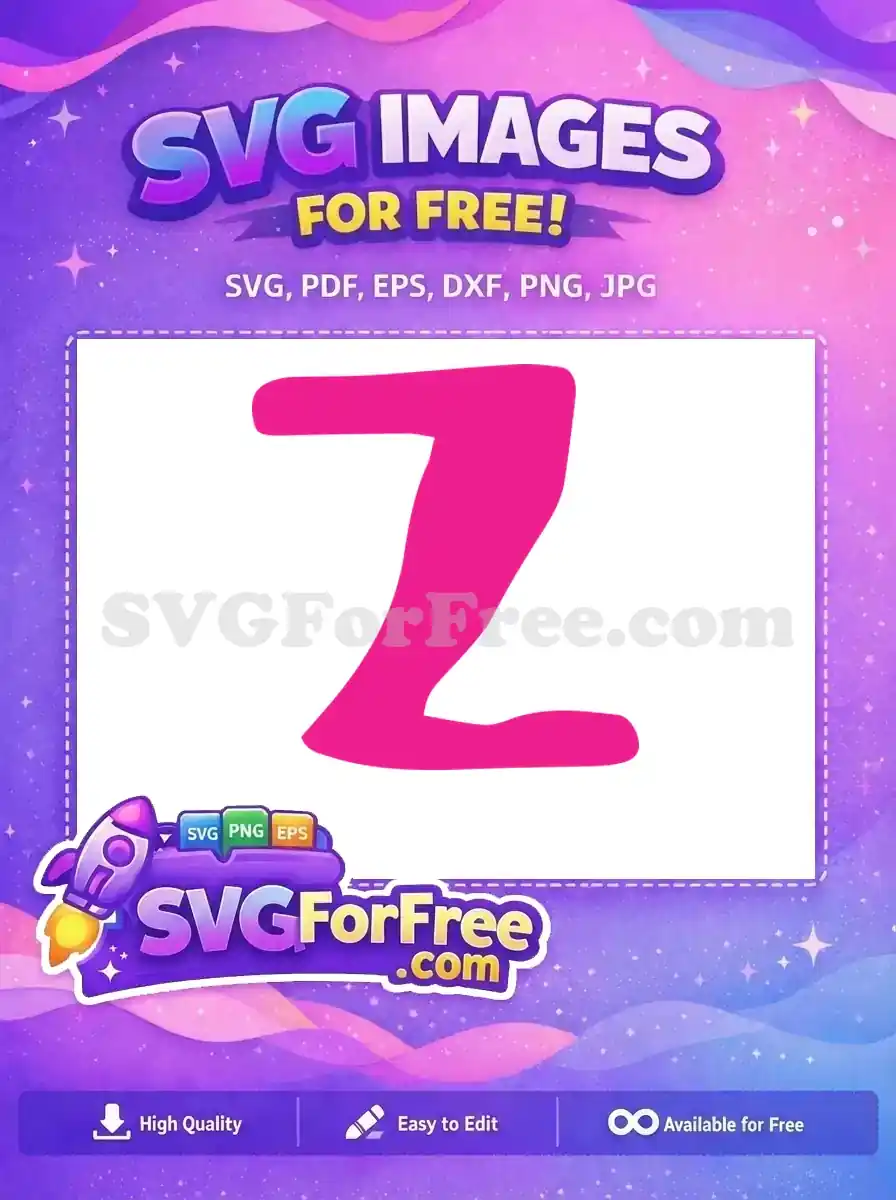
Free Minnie Pink Font Free Letter Z Alphabet Free SVG – Instant Download
A bold, bright pink capital letter ‘Z’ in a heavy, sans-serif typeface. An eye-catching and free vector.
Free Minnie Pink Font Free Letter Z Alphabet Free SVG